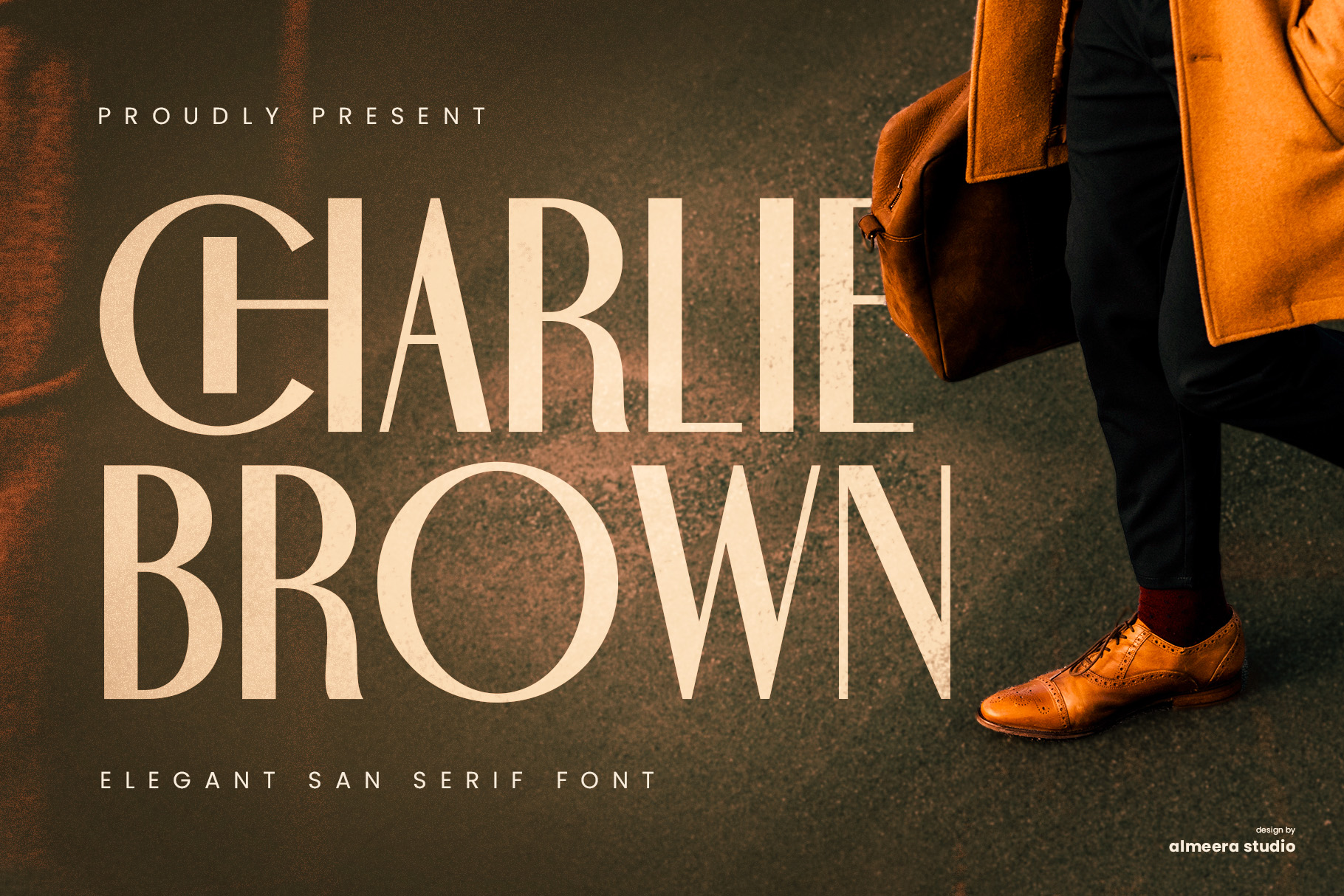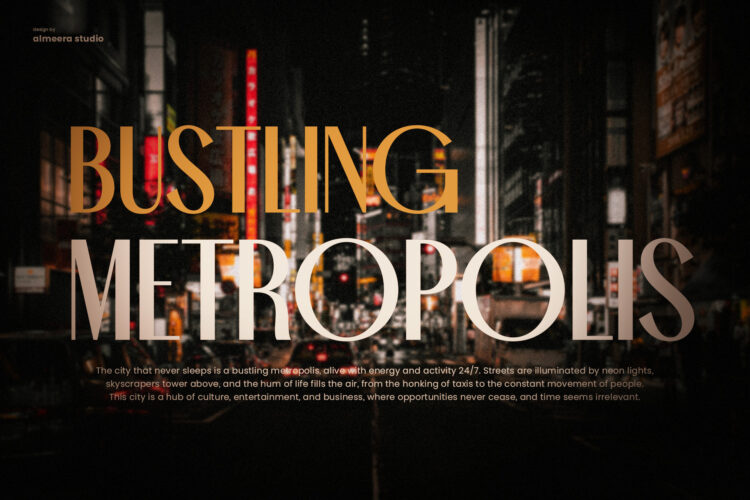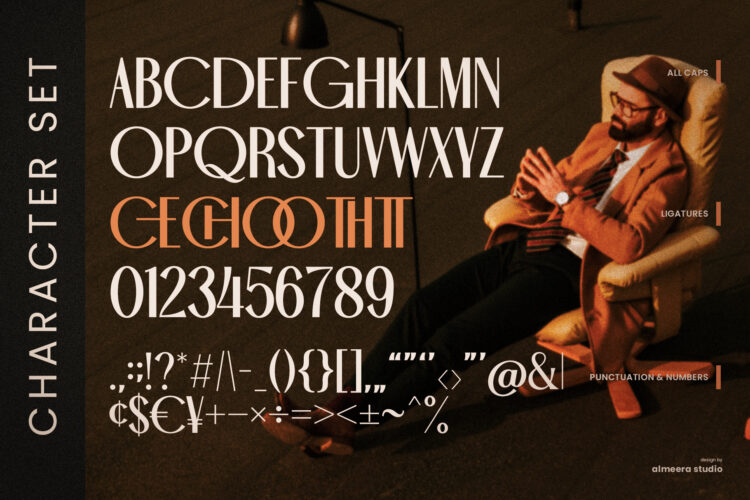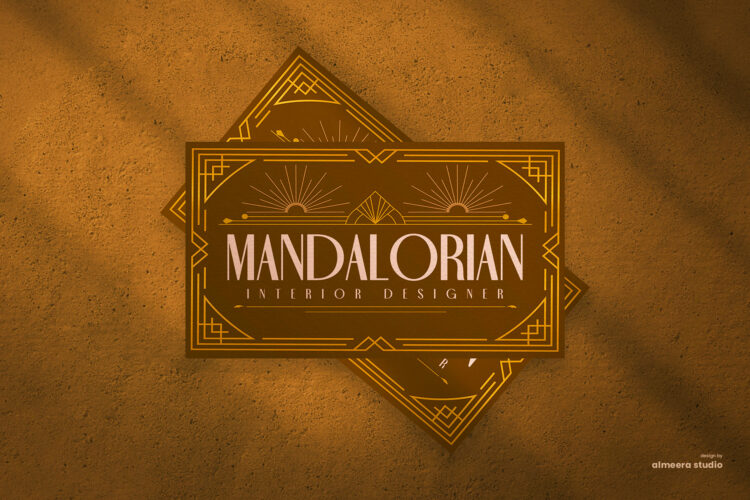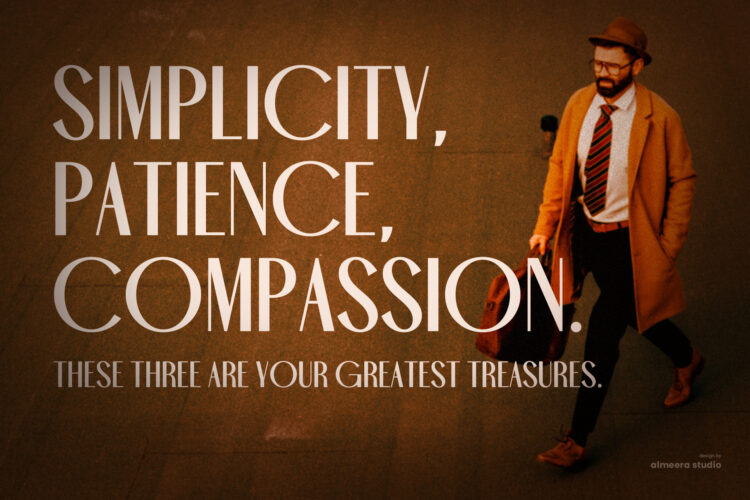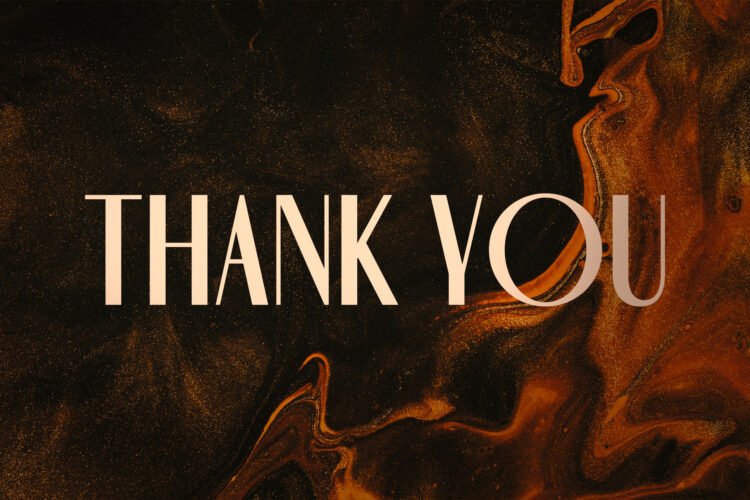
Charlie Brown is a modern, elegant and simple font, best used as a display for headings, logos, branding, magazines, product packaging and invitations.
– All Caps
– Symbols
– Ligatures
Charlie Brown – Modern Sans